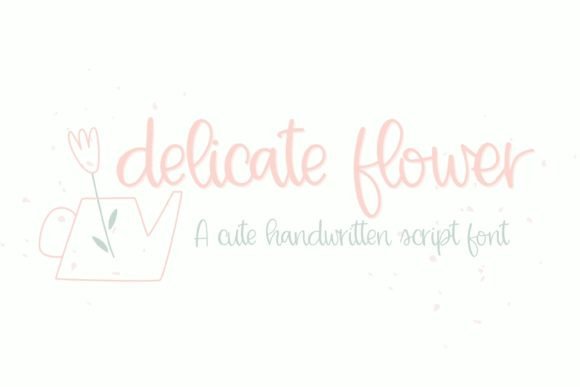
Playful and whimsical, stroll into a garden of delightful designs sprinkled with the magic of Delicate Flower, an enchanting script font that exudes charm with every stroke. Picture heartwarming SVG creations, irresistibly cute greeting cards, or whimsical invitations adorned with its dainty, swirling touch, inviting you into a world of endearing expressions and heart-melting aesthetics. Each character dances with elegance, entwined with delicate curves reminiscent of flowers in bloom, carrying a message of joy and sweetness. Dive into the world of Delicate Flower and watch as your designs blossom into captivating works of art, sure to capture hearts and leave a lasting impression!